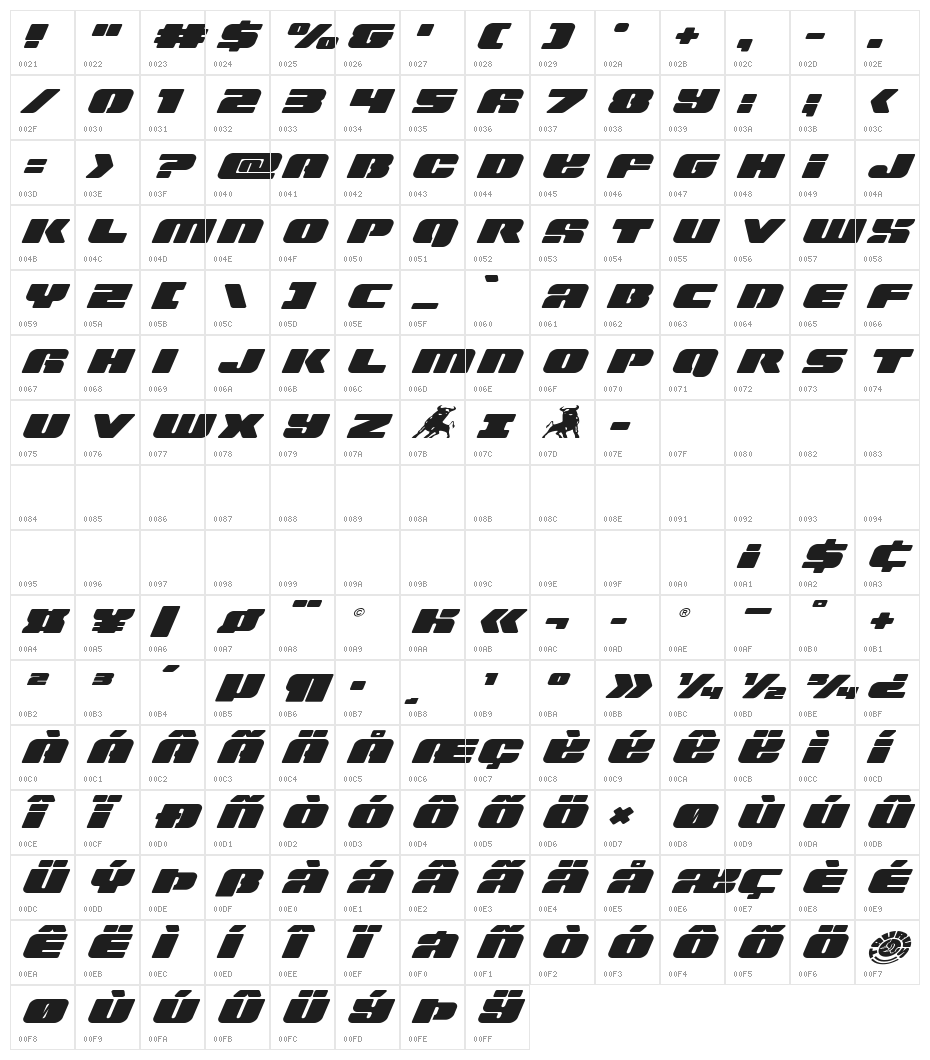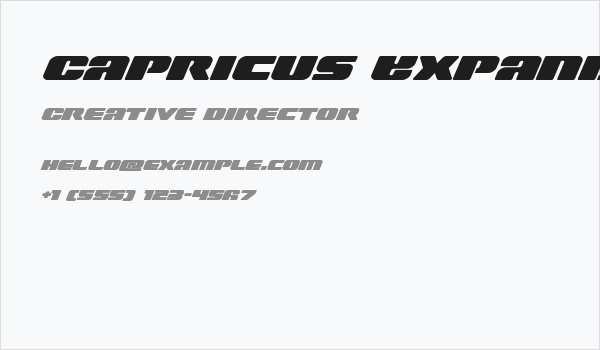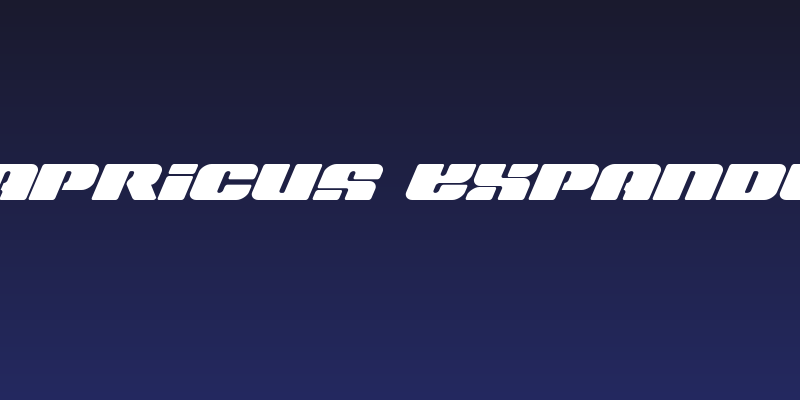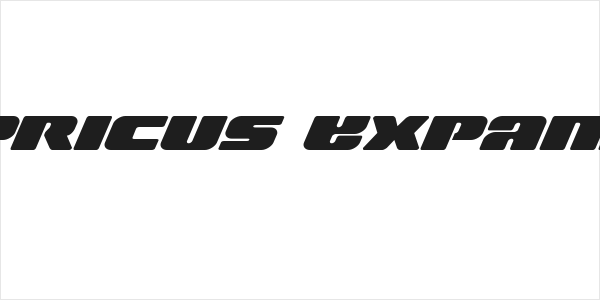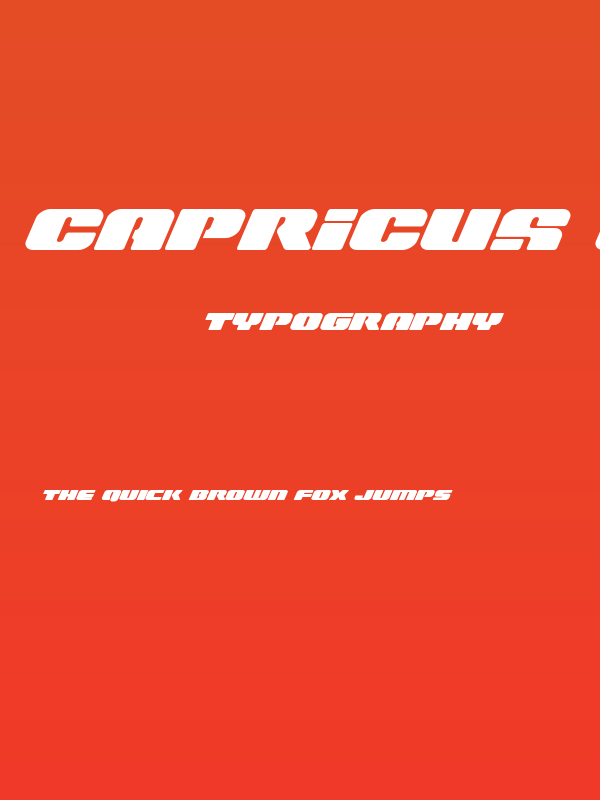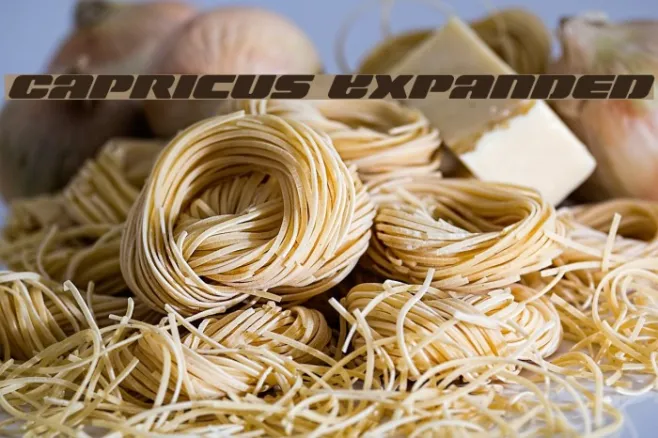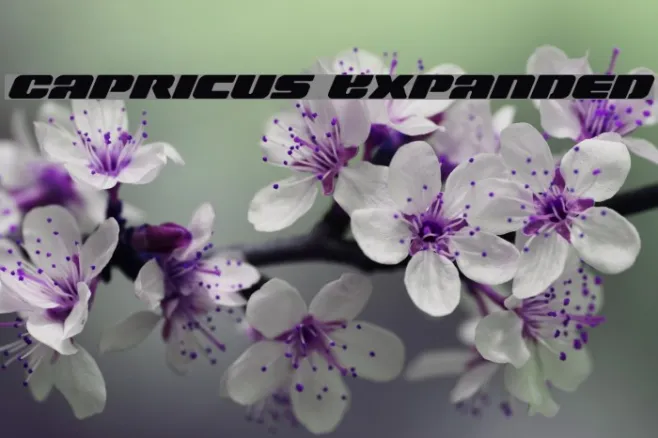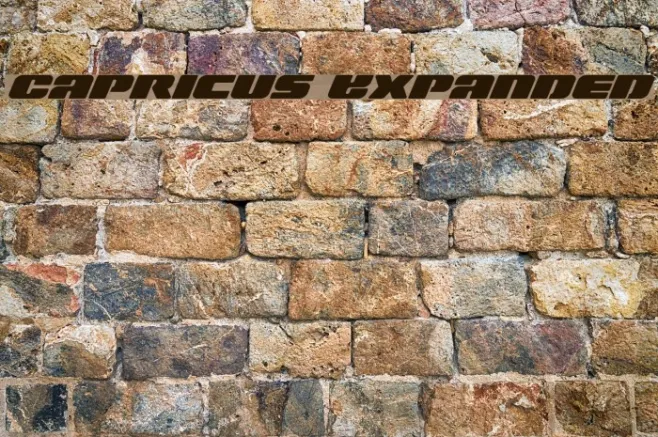
Capricus Expanded Font
Capricus Expanded Description
This font features a bold and dynamic design with a futuristic flair. The characters are wide and have a strong presence, making them ideal for attention-grabbing headlines. The angular cuts and geometric shapes give it a modern and edgy look. The uppercase and lowercase letters maintain a consistent style, while the numbers and special characters complement the overall aesthetic. This font is perfect for projects that require a bold statement, such as posters, logos, and branding materials.
CAPRICUS-EXPANDED UPPERCASE
CAPRICUS-EXPANDED LOWERCASE
CAPRICUS-EXPANDED OTHER CHARS
| Proposed Projects | Ideal for posters, logos, branding, and any project needing a bold, modern look. |